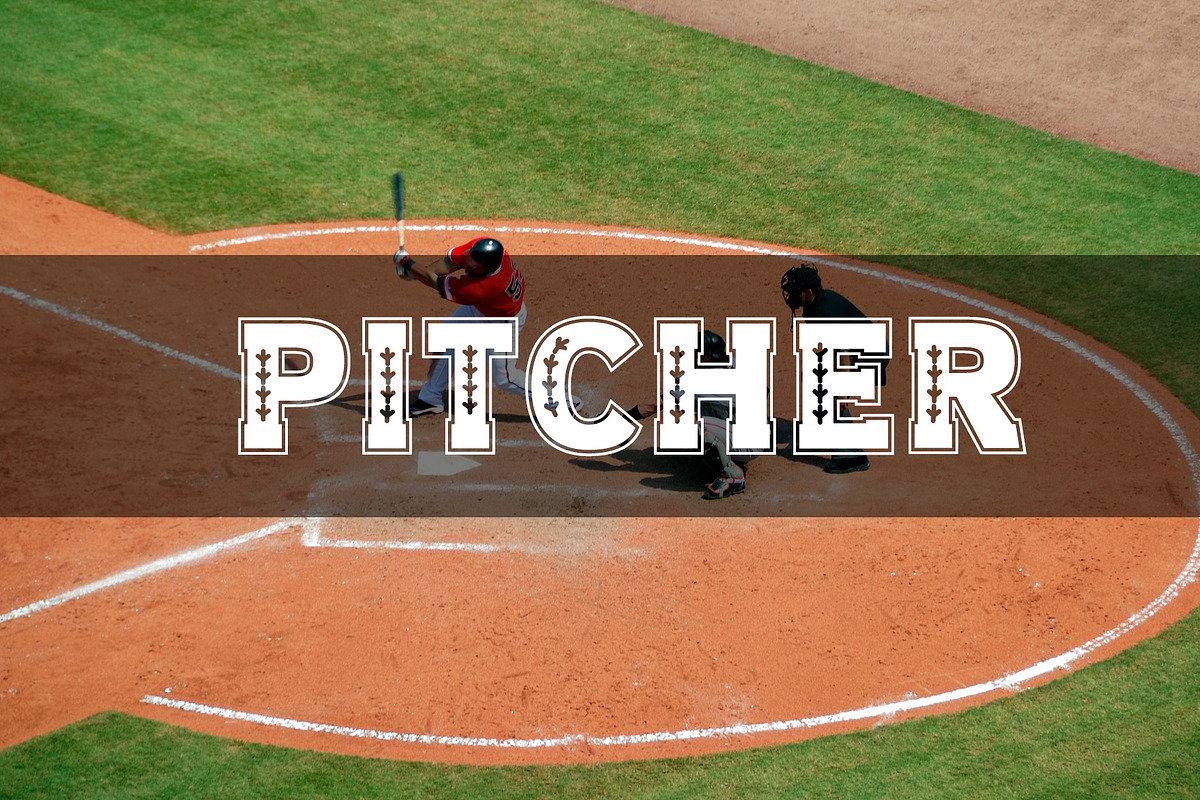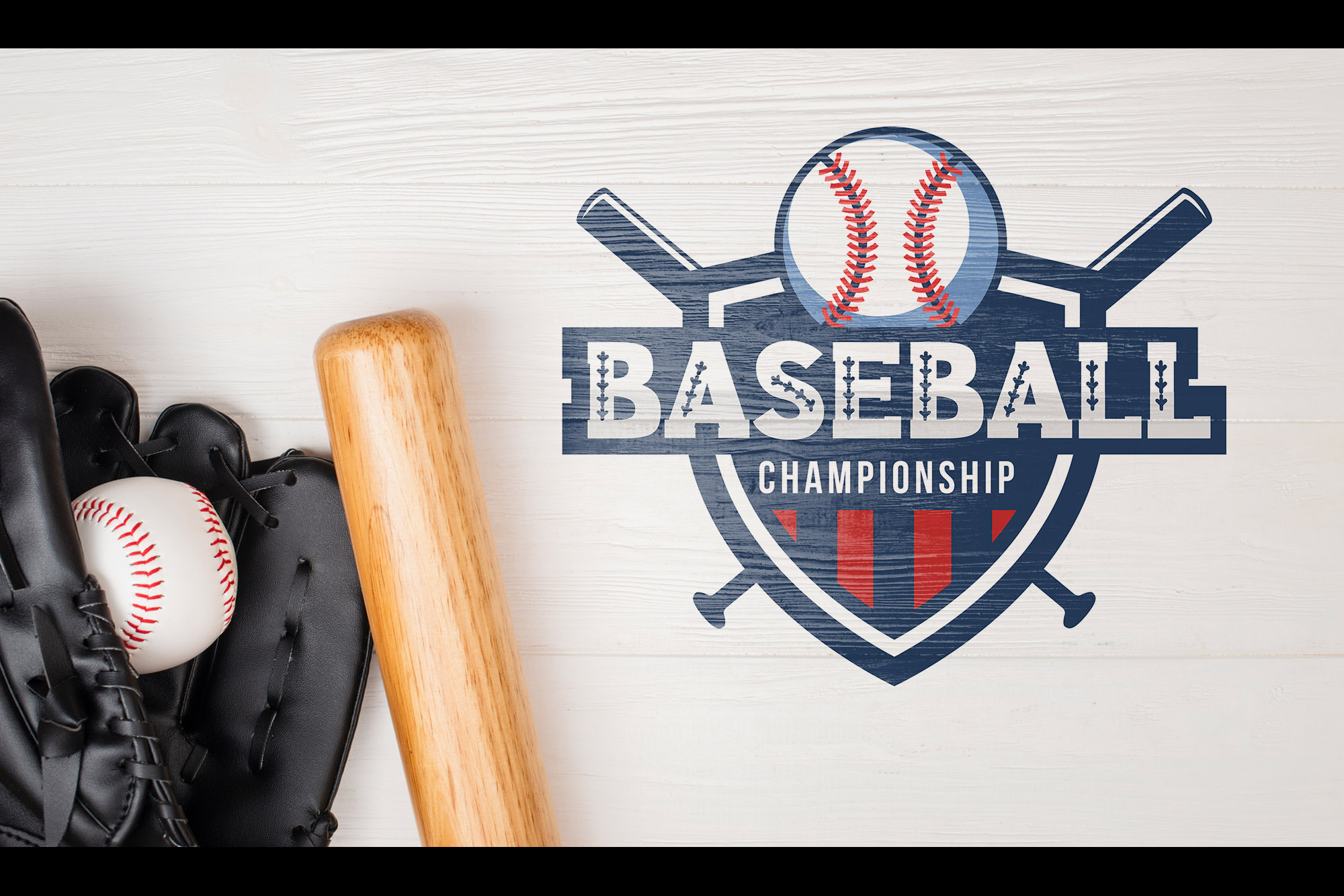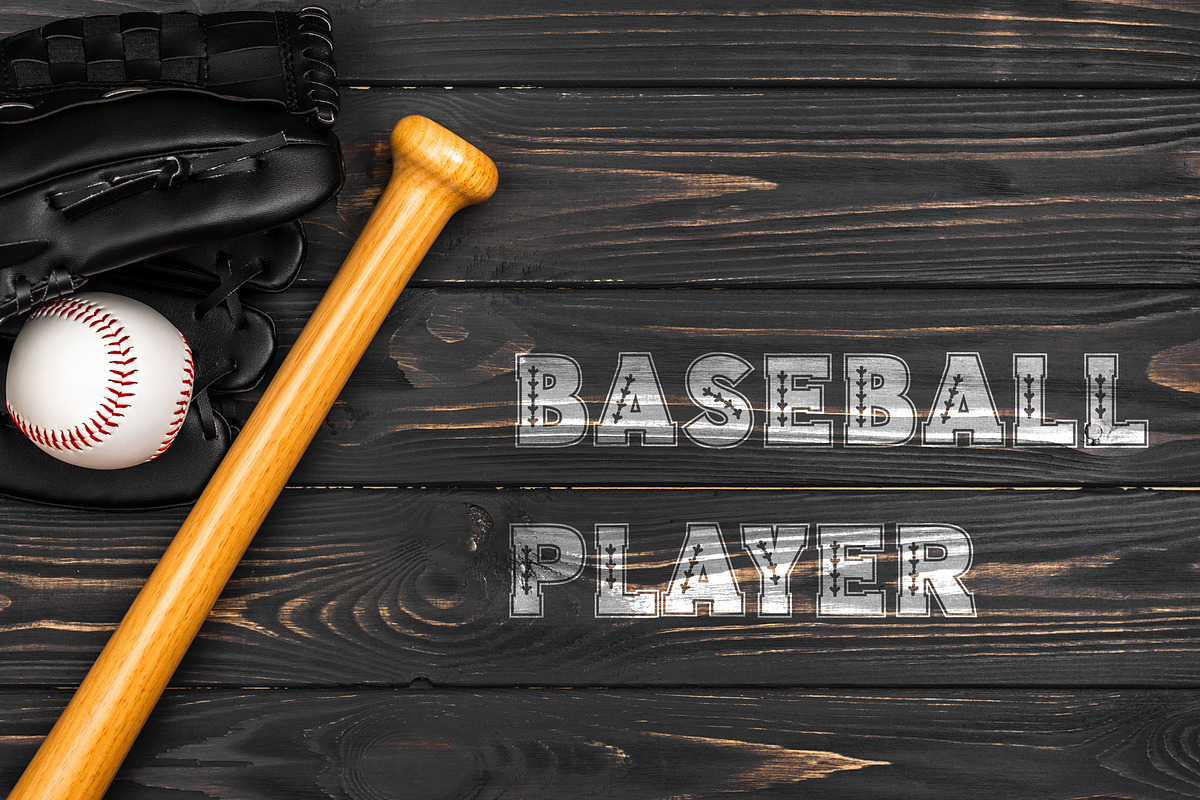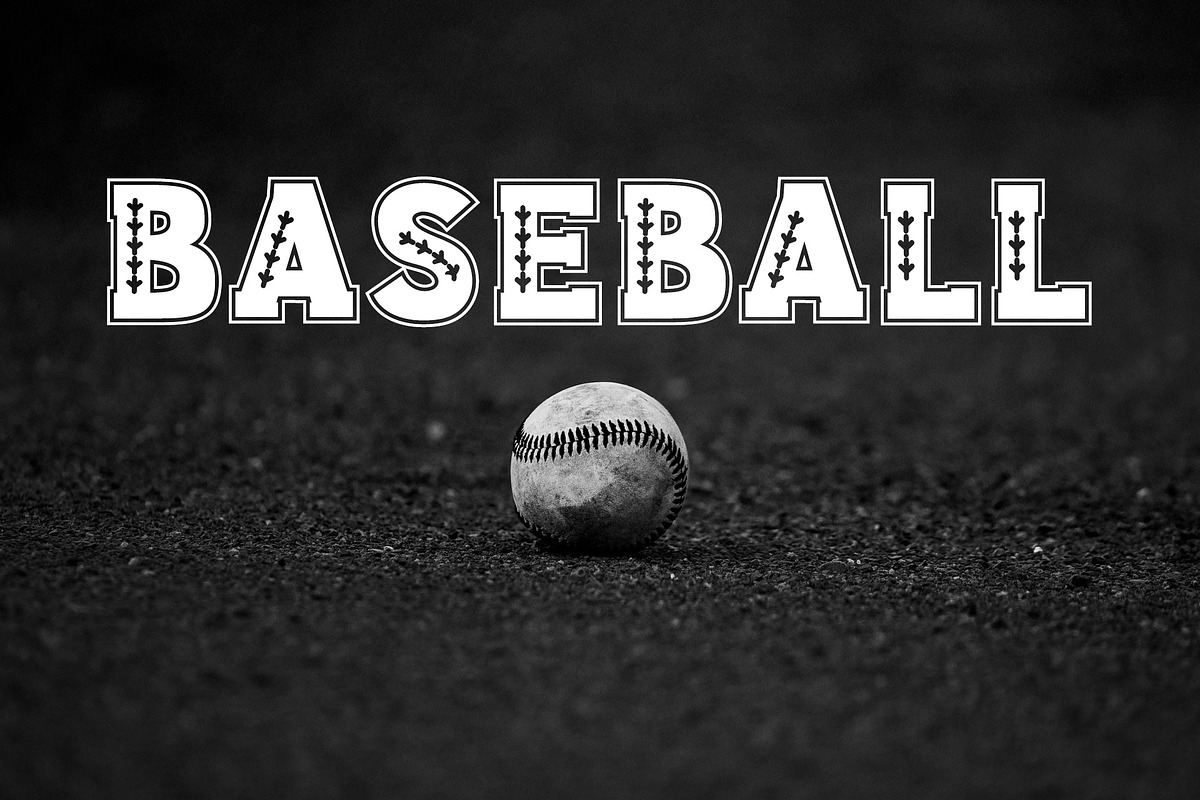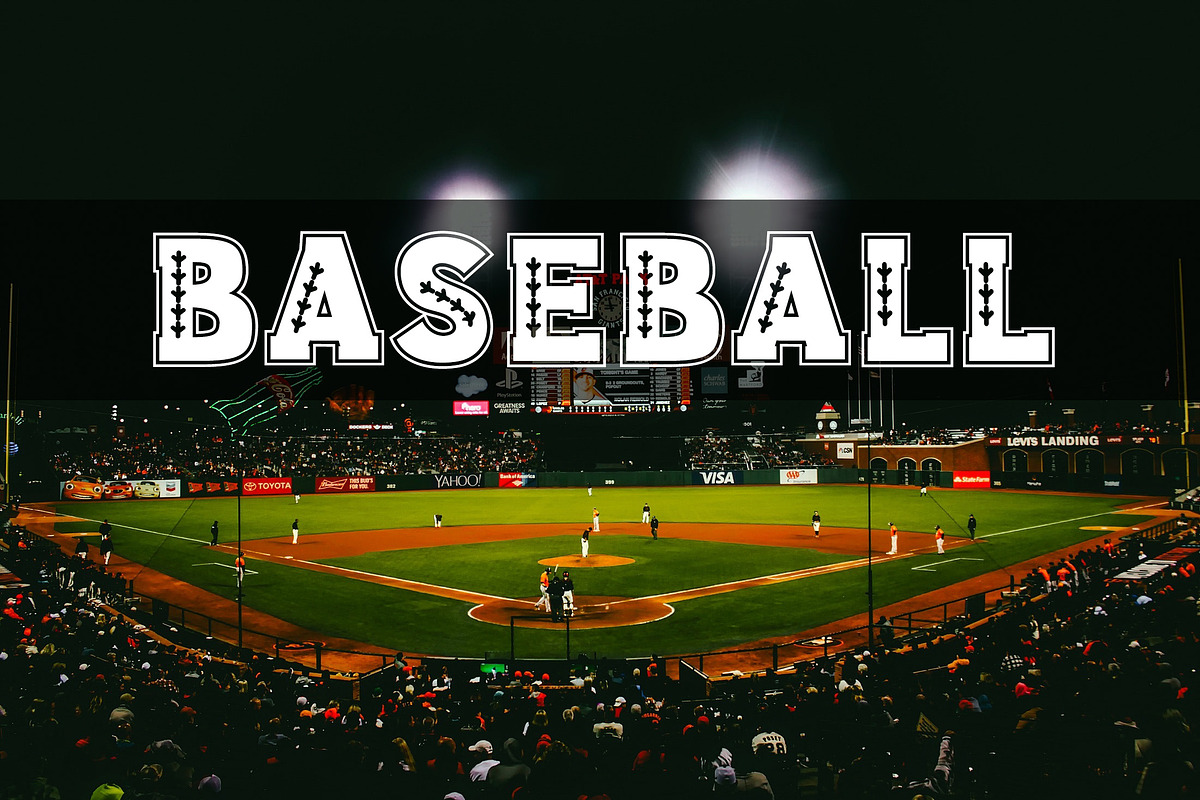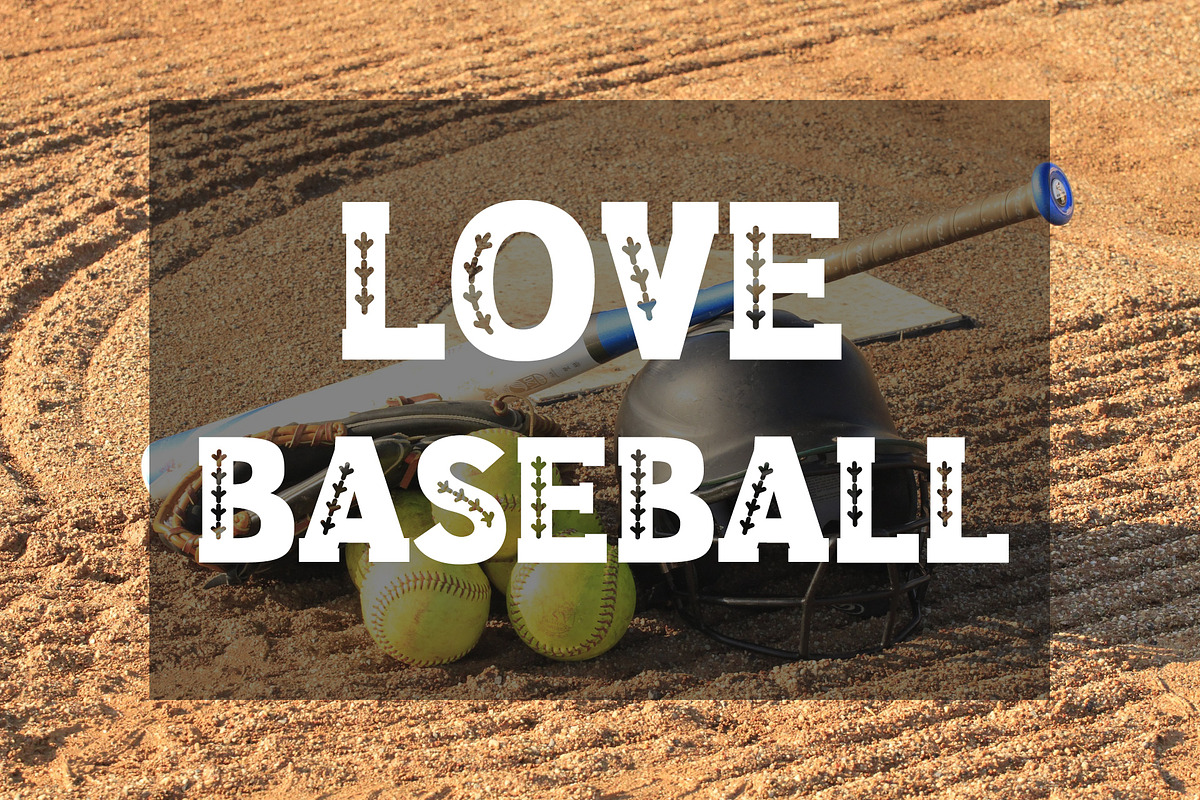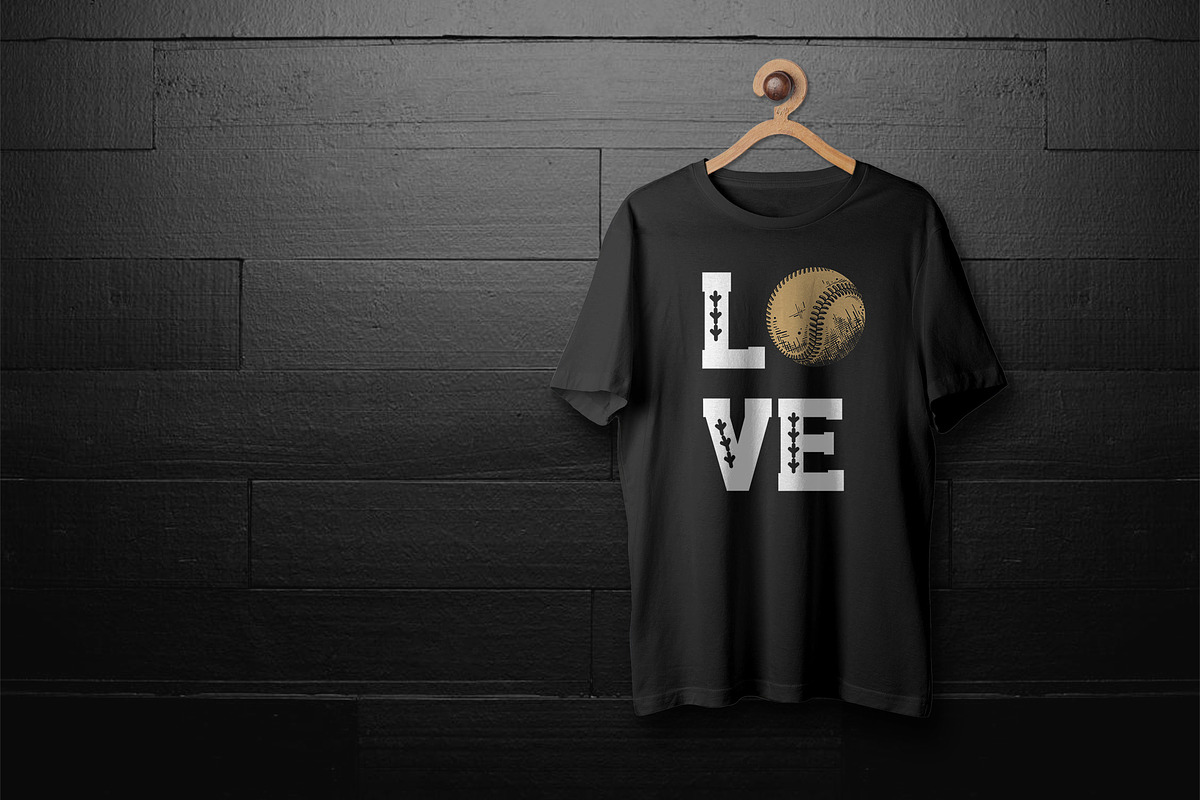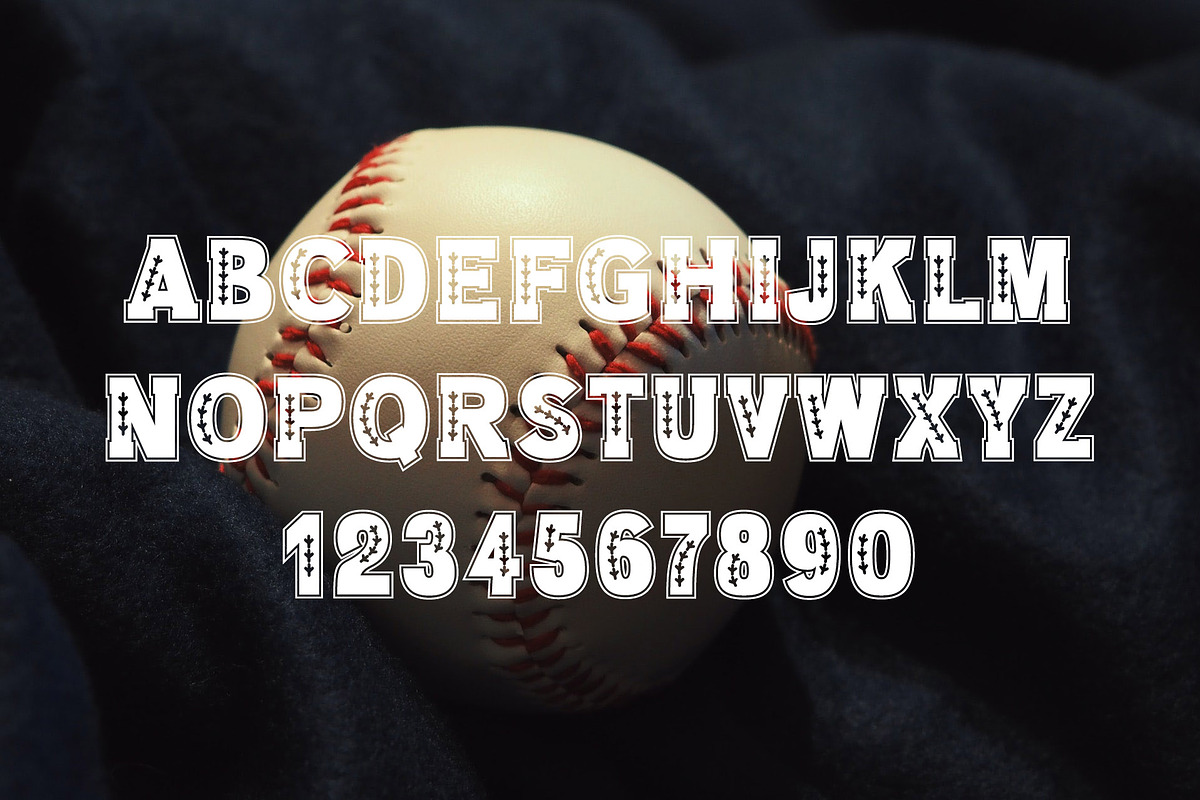
Baseball Slab Outline Font
Baseball Slab and Baseball Outline Fonts are decorative sport fonts.
Baseball is a beautiful decorative font. Bold, chunky, and unique, this font is perfect for your most creative projects such as posters, invitations, book titles, magazines, social media posts, and so much more!
Great for for embroidery and sewing crafts.